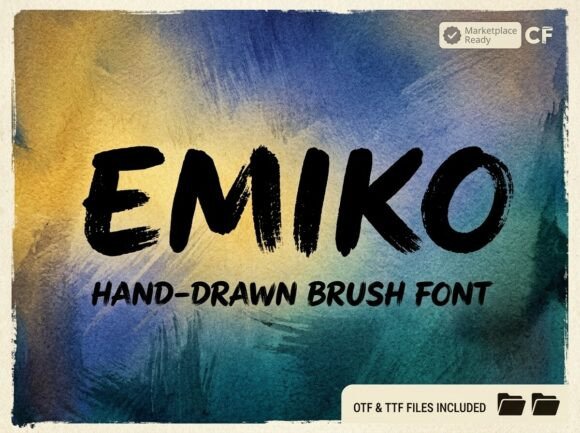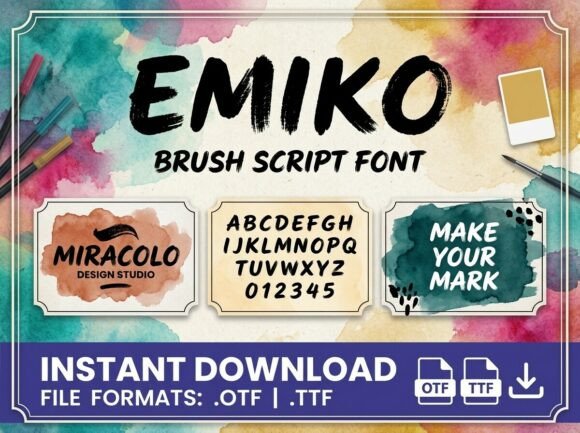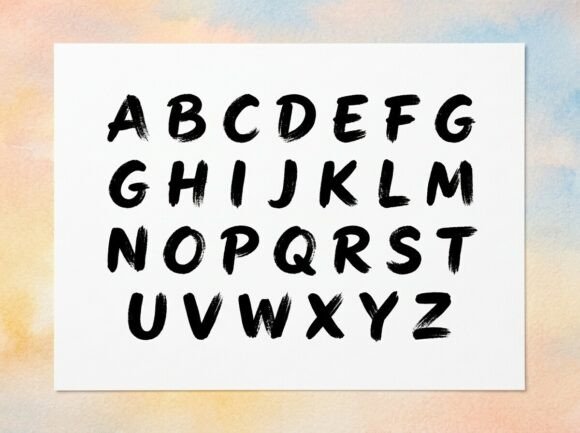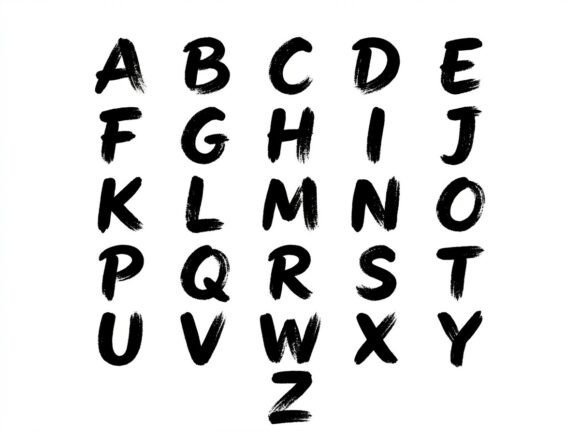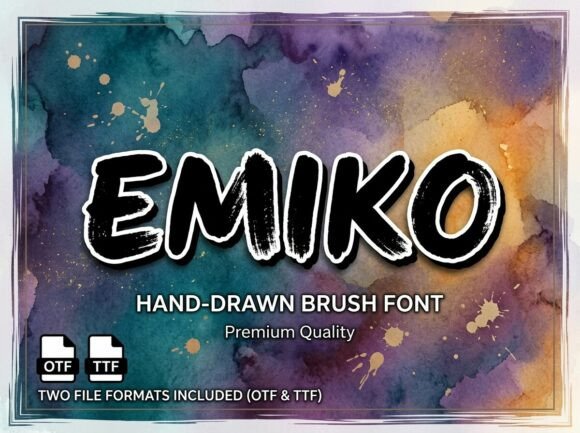
Introducing Emiko Font: A Stunning Decorative Display Font
Are you tired of using the same old fonts for your designs? Do you want to add a touch of uniqueness and creativity to your projects? Look no further than Emiko Font, a decorative display font that is sure to turn heads. In this article, we’ll take a closer look at Emiko Font, its features, and how it can elevate your designs.
Emiko Font is a stunning decorative display font designed to be the center of attention. With its unique artistic elements and strong visual personality, this font is perfect for creators who want to break away from the ordinary. Whether you’re designing bold headlines, artistic logos, or creative packaging, Emiko Font is the perfect choice.
Key Features of Emiko Font
- Unique Artistic Elements: Emiko Font features unique artistic elements that set it apart from other fonts. Each letter is carefully crafted to make a statement.
- Strong Visual Personality: This font has a strong visual personality that is sure to grab attention. It’s perfect for designs that need to stand out.
- Versatile: Emiko Font is versatile enough for a variety of design applications, including bold headlines, artistic logos, and creative packaging.
- Professional and Polished Finish: Despite its decorative nature, Emiko Font maintains a professional and polished finish, making it suitable for a wide range of design projects.
Important Note: All-Caps Display Typeface
⚠️ IMPORTANT NOTE BEFORE PURCHASE: Emiko Font is an ALL-CAPS (Uppercase Only) display typeface. It does not include lowercase letters. It is specifically designed for high-impact headlines, logos, and decorative initials where every letter is a work of art.
This means that Emiko Font is perfect for designs where you want to make a bold statement, but it’s not suitable for body text or designs that require a mix of uppercase and lowercase letters.
Use Cases for Emiko Font
So, how can you use Emiko Font in your designs? Here are a few ideas:
- Headlines and Titles: Use Emiko Font to create bold and eye-catching headlines and titles for your blog posts, articles, and social media graphics.
- Logos and Branding: Emiko Font is perfect for creating unique and memorable logos and branding elements.
- Packaging Design: Add a touch of creativity and elegance to your packaging design with Emiko Font.
- Advertising and Marketing Materials: Use Emiko Font to create eye-catching advertising and marketing materials, such as billboards, posters, and flyers.
Emiko Font is a stunning decorative display font that is sure to elevate your designs. With its unique artistic elements, strong visual personality, and versatility, it’s perfect for creators who want to break away from the ordinary. Whether you’re designing bold headlines, artistic logos, or creative packaging, Emiko Font is the perfect choice. So why wait? Get Emiko Font today and take your designs to the next level!